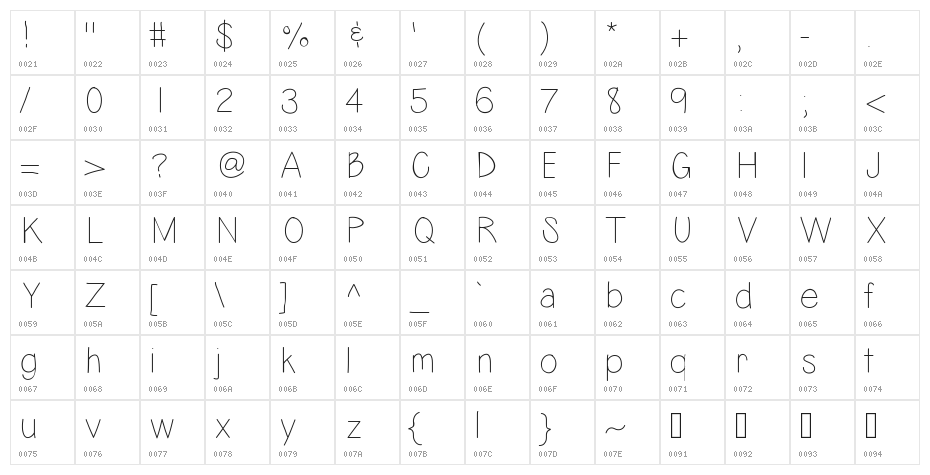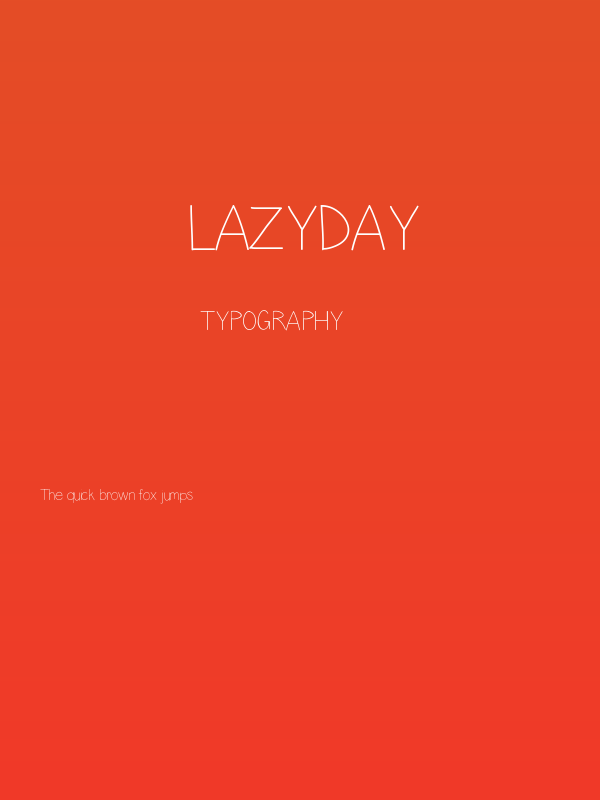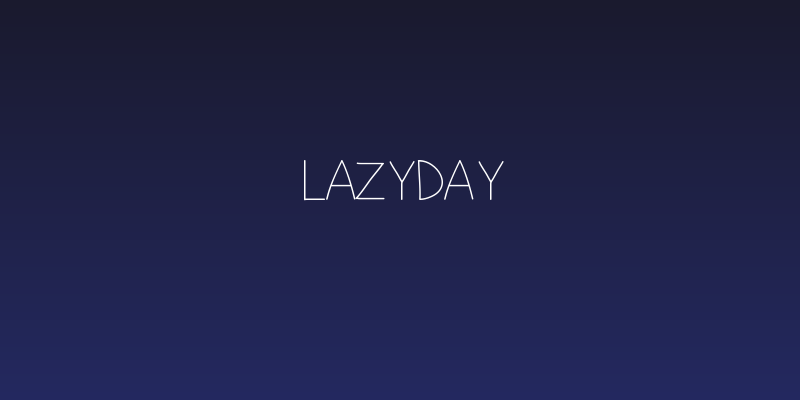
LazyDay Font
LazyDay Description
This font features a playful and whimsical design, characterized by its thin, elongated strokes and slightly irregular shapes. The uppercase letters are tall and narrow, with a consistent height that gives a uniform appearance. The lowercase letters maintain a similar style, with rounded edges and a casual feel. Numbers and special characters follow the same aesthetic, ensuring a cohesive look across all glyphs. The overall design is light and airy, making it suitable for projects that require a touch of informality and creativity.
| Proposed Projects | Ideal for children's books, creative branding, casual invitations, and playful social media graphics. |